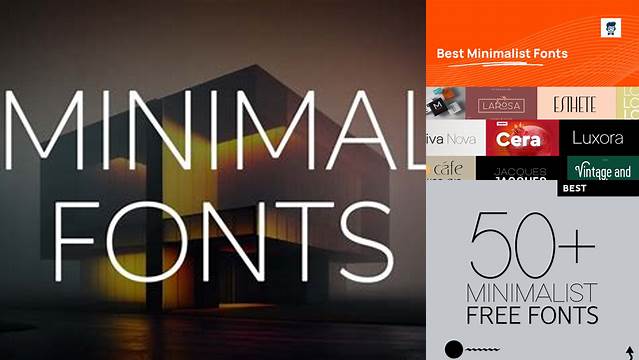
Free Minimalist Fonts For Your Logo: Simple & Clean
Choosing the right font for your logo is super important, guys! It's like picking the perfect outfit for a first date – you want to make a good impression. If you're going for a sleek, modern look, minimalist fonts are the way to go. They're clean, simple, and can really make your brand stand out without being too flashy. Plus, who doesn't love free stuff? Let's dive into the world of free minimalist fonts and find some awesome options for your logo.
What Are Minimalist Fonts?
Minimalist fonts are all about simplicity. Think clean lines, geometric shapes, and a lack of unnecessary embellishments. These fonts focus on readability and clarity, making them perfect for logos that need to be easily recognizable. They often feature a sans-serif design, which means they don't have those little decorative strokes (serifs) at the ends of the letters. Minimalist fonts convey a sense of modernity, sophistication, and straightforwardness, making them ideal for brands that want to project a clean and professional image. When you choose a minimalist font, you're essentially saying, "We're confident, we're clear, and we don't need to shout to get your attention."
Why Use Minimalist Fonts for Logos?
Using minimalist fonts for logos is a smart move for several reasons. First off, they're incredibly versatile. Whether you're designing a logo for a tech startup, a fashion brand, or a coffee shop, a minimalist font can fit right in. They're also timeless, meaning they won't look dated anytime soon. In today's visually cluttered world, the simplicity of a minimalist font can help your logo stand out by being clean and easy to read. Moreover, these fonts often scale well, ensuring your logo looks great whether it's on a business card or a billboard. Ultimately, a minimalist font can communicate professionalism and clarity, which are key qualities for any successful brand.
Where to Find Free Minimalist Logo Fonts
Popular Free Minimalist Fonts for Logos
Alright, let's get into some specific font recommendations! Here are a few popular free minimalist fonts that would look amazing in a logo:
- Lato: A sleek sans-serif font that’s super readable and versatile.
- Open Sans: Another classic sans-serif that’s clean and modern.
- Montserrat: A geometric font with a contemporary feel.
- Raleway: An elegant sans-serif that’s perfect for a stylish brand.
- Roboto: A modern font that’s easy on the eyes and works well in various sizes.
Each of these fonts brings something unique to the table, so play around with them and see which one best fits your brand's vibe.
How to Choose the Right Minimalist Font
Choosing the right minimalist font for your logo is crucial. First, consider your brand's personality. Are you modern and tech-savvy, or more classic and sophisticated? Your font should reflect that. Think about readability too. A beautiful font is useless if people can't easily read your logo. Make sure the font looks good in various sizes and on different backgrounds. Also, don't be afraid to experiment with different fonts and see how they look with your brand name and colors. Get feedback from friends, colleagues, or even potential customers to get a fresh perspective.
Font Pairing for Minimalist Logos
Font pairing is an art! Combining different fonts can add depth and visual interest to your logo. When pairing fonts, make sure they complement each other without clashing. A good rule of thumb is to pair a minimalist font with a slightly bolder or more decorative font to create contrast. For example, you could pair Lato with a serif font like Playfair Display for a sophisticated look. Or, you could combine Montserrat with a script font for a touch of personality. Just be sure to keep it simple and avoid using too many fonts, as that can make your logo look cluttered and confusing. Stick to two fonts max for a clean and cohesive design.
The Importance of Font Licensing
Okay, let's talk about font licensing because it's super important, guys. Before you use any font in your logo, make sure you understand its license. Many free fonts come with restrictions on commercial use, meaning you can't use them for business purposes without purchasing a license. Using a font without the proper license can lead to legal trouble, which is definitely something you want to avoid. Websites like Google Fonts clearly state the license for each font, so be sure to check before you download anything. If you're unsure, it's always best to err on the side of caution and either purchase a license or choose a different font.
Customizing Free Minimalist Fonts
One of the coolest things about free minimalist fonts is that you can customize them to make them truly unique to your brand. Play around with different weights, styles, and spacing to create a font that perfectly reflects your brand's personality. You can also adjust the kerning (the space between letters) and the tracking (the overall spacing of the font) to fine-tune the look and feel of your logo. With a little creativity, you can transform a basic free font into a stunning, one-of-a-kind design that sets your brand apart from the competition.
Minimalist Font Trends in Logo Design
Minimalist font trends in logo design are constantly evolving, but some styles remain timeless. Currently, geometric sans-serif fonts with clean lines are super popular, as are fonts with subtle variations in weight and thickness. Monospaced fonts, which have equally spaced letters, are also gaining traction for their modern and technical feel. Additionally, many brands are experimenting with custom typography to create unique and memorable logos. Keeping an eye on these trends can help you choose a font that's both stylish and relevant, ensuring your logo looks fresh and up-to-date.
How to Test Your Minimalist Logo Font
Testing your minimalist logo font is a crucial step in the design process. Once you've chosen a font, try it out in different sizes and on various backgrounds to see how it looks. Make sure it's legible on both light and dark backgrounds, and that it scales well for different applications, from business cards to websites. Get feedback from others to see if they find the font easy to read and visually appealing. You can also use online tools to simulate how your logo will look in different contexts. By thoroughly testing your font, you can ensure it effectively represents your brand and communicates your message.
Minimalist Fonts and Brand Identity
Minimalist fonts play a huge role in shaping your brand identity. The font you choose can communicate your brand's personality, values, and overall message. A clean, modern font can convey a sense of professionalism and innovation, while a more classic font can evoke trust and reliability. When selecting a font, consider your target audience and what kind of impression you want to make. Consistency is key, so once you've chosen a font, stick with it across all your branding materials. By carefully considering your font choice, you can create a strong and cohesive brand identity that resonates with your audience.
Best Font Combinations for Minimalist Logos
Creating an eye-catching logo is made easy by best font combinations. Consider combining a bold, sans-serif font like Montserrat for your brand name with a lighter, more delicate font like Raleway for your tagline. This creates a visually appealing contrast that draws the eye and makes your logo more memorable. Another great option is to pair a geometric font like Futura with a classic serif font like Garamond for a timeless and sophisticated look. Experiment with different combinations until you find one that perfectly captures your brand's personality and style.
Minimalist Logo Design Tips
When designing a minimalist logo, simplicity is key. Start by focusing on the core message you want to convey and choose a font that reflects that message. Avoid using too many colors or visual elements, as this can clutter your design and make it less effective. Pay attention to negative space and use it to create visual interest and balance. Ensure your logo is scalable and looks good in both small and large sizes. Get feedback from others and be willing to iterate and refine your design until it's perfect.
Free Resources for Minimalist Logo Fonts
There are tons of free resources available online where you can find minimalist logo fonts. Google Fonts is a great place to start, as it offers a wide variety of high-quality, open-source fonts that are free for commercial use. Font Squirrel is another excellent resource, with a curated selection of free fonts that are perfect for logos. DaFont is a popular website with a massive collection of fonts, but be sure to check the license before using any font in your logo. With a little searching, you'll find plenty of amazing free fonts to choose from.
How to Install Free Minimalist Fonts
Installing free minimalist fonts is usually a breeze. First, download the font file from a reputable website like Google Fonts or Font Squirrel. The file will typically be in a ZIP format, so you'll need to extract it. Once you've extracted the file, you'll find one or more font files in either .OTF or .TTF format. On Windows, simply right-click on the font file and select "Install." On a Mac, double-click the font file and click "Install Font" in the Font Book application. Once the font is installed, it will be available for use in your design software.
Minimalist Fonts for Different Industries
Different industries often require different types of minimalist fonts. For example, a tech company might opt for a clean, geometric font like Montserrat or Roboto to convey a sense of innovation and modernity. A fashion brand, on the other hand, might choose a more elegant and refined font like Raleway or Lato to reflect its sophisticated style. A healthcare provider might prefer a more approachable and friendly font like Open Sans or Nunito to build trust and rapport with patients. Consider your industry and target audience when choosing a font to ensure it effectively communicates your brand's message.
The Psychology of Minimalist Fonts
Minimalist fonts can have a powerful psychological impact on your audience. Clean, simple fonts often evoke feelings of trust, reliability, and professionalism. They can also convey a sense of modernity, innovation, and efficiency. By choosing a minimalist font, you can create a logo that resonates with your target audience and communicates your brand's values. For example, a clean and uncluttered font can suggest that your company is organized and efficient, while a more modern font can imply that your brand is innovative and forward-thinking.
Legal Considerations for Using Free Fonts
Before using any free font in your logo, it's essential to understand the legal considerations. Many free fonts come with specific licensing terms that dictate how you can use them. Some fonts are free for personal use only, while others are free for commercial use as well. Be sure to carefully read the license agreement before using a font to ensure you're not violating any terms. If you're unsure, it's always best to err on the side of caution and either purchase a commercial license or choose a different font with more permissive terms.
Minimalist Fonts vs. Other Font Styles
Minimalist fonts stand in stark contrast to other font styles like serif, script, and decorative fonts. Serif fonts have small decorative strokes at the ends of the letters, giving them a more traditional and formal look. Script fonts mimic handwriting and are often used to convey elegance and creativity. Decorative fonts are more elaborate and stylized, and are often used to make a bold statement. Minimalist fonts, on the other hand, are all about simplicity and clarity. They lack unnecessary embellishments and focus on readability and clean lines.
Future Trends in Minimalist Logo Fonts
Looking ahead, several trends are emerging in the world of minimalist logo fonts. One trend is the use of variable fonts, which allow designers to adjust the weight, width, and other characteristics of a font to create a custom look. Another trend is the incorporation of subtle animation and motion into logo typography. Additionally, there's a growing emphasis on creating fonts that are optimized for digital displays, ensuring they look crisp and clear on screens of all sizes. By staying ahead of these trends, you can ensure your logo remains fresh and relevant for years to come.
How to Create Your Own Minimalist Font
Creating your own minimalist font can be a rewarding way to develop a unique brand identity. Start by sketching out the basic shapes and proportions of each letterform. Focus on simplicity and clarity, avoiding unnecessary details or embellishments. Use a font design software like FontLab or Glyphs to digitize your sketches and refine your design. Pay attention to kerning and spacing to ensure your font is legible and visually appealing. Once you're happy with your design, you can export it as a .OTF or .TTF file and start using it in your logo and branding materials.
The Impact of Color on Minimalist Logos
Color plays a crucial role in minimalist logos, often serving as the primary element that conveys emotion and meaning. A minimalist logo with a bold, vibrant color can evoke feelings of energy and excitement, while a logo with a muted, neutral color can project a sense of calm and sophistication. When choosing colors for your logo, consider your target audience and the message you want to communicate. Use color sparingly, as too many colors can clutter your design and detract from its simplicity.
The Role of White Space in Minimalist Logos
White space, also known as negative space, is a key element in minimalist logos. It refers to the empty areas around and within the logo design. White space helps to create visual balance, improve readability, and give the logo a clean and uncluttered look. It also allows the viewer's eye to focus on the essential elements of the logo, making it more memorable and impactful. Effective use of white space can transform a simple logo into a sophisticated and eye-catching design.
Incorporating Icons with Minimalist Fonts
Combining icons with minimalist fonts can add visual interest and meaning to your logo. Choose icons that are simple, clean, and consistent with the overall style of your brand. Make sure the icon complements the font and doesn't overpower it. Use icons sparingly, as too many icons can clutter your design and make it less effective. A well-chosen icon can help to communicate your brand's message and make your logo more memorable.
Minimalist Fonts for Web Design
Minimalist fonts are not just for logos; they're also widely used in web design. Clean, simple fonts can improve readability and create a more user-friendly experience. Choose fonts that are optimized for web display, ensuring they look crisp and clear on screens of all sizes. Use font pairing to create visual interest and hierarchy, but avoid using too many fonts, as this can slow down your website and make it look cluttered. By using minimalist fonts effectively, you can create a website that is both visually appealing and easy to navigate.
Minimalist Fonts for Print Materials
Minimalist fonts are also a great choice for print materials like business cards, brochures, and flyers. Choose fonts that are legible in both small and large sizes, ensuring your message is clear and easy to read. Use font pairing to create visual interest and hierarchy, but avoid using too many fonts, as this can make your design look cluttered. When printing, make sure to use high-quality paper and ink to ensure your fonts look crisp and professional.
Common Mistakes to Avoid with Minimalist Fonts
When working with minimalist fonts, there are several common mistakes to avoid. One mistake is using a font that is too thin or delicate, which can make it difficult to read, especially in smaller sizes. Another mistake is using too many different fonts, which can clutter your design and make it look unprofessional. Additionally, be careful not to overuse white space, as too much white space can make your logo look empty and uninspired. By avoiding these mistakes, you can create a minimalist logo that is both visually appealing and effective.
The Evolution of Minimalist Logo Design
Minimalist logo design has evolved significantly over the years. In the past, logos were often complex and detailed, with multiple colors and visual elements. However, as design trends have shifted towards simplicity and clarity, minimalist logos have become increasingly popular. Today, many of the world's most recognizable brands have adopted minimalist logos that are clean, simple, and memorable. This trend is likely to continue in the future, as minimalist design continues to gain traction in various industries.
Minimalist Logo Fonts: A Summary
Choosing the right minimalist font for your logo is a crucial step in creating a strong and effective brand identity. By focusing on simplicity, clarity, and readability, you can create a logo that resonates with your target audience and communicates your brand's message. Remember to consider your industry, target audience, and the overall message you want to convey when choosing a font. With a little creativity and attention to detail, you can create a minimalist logo that sets your brand apart from the competition.